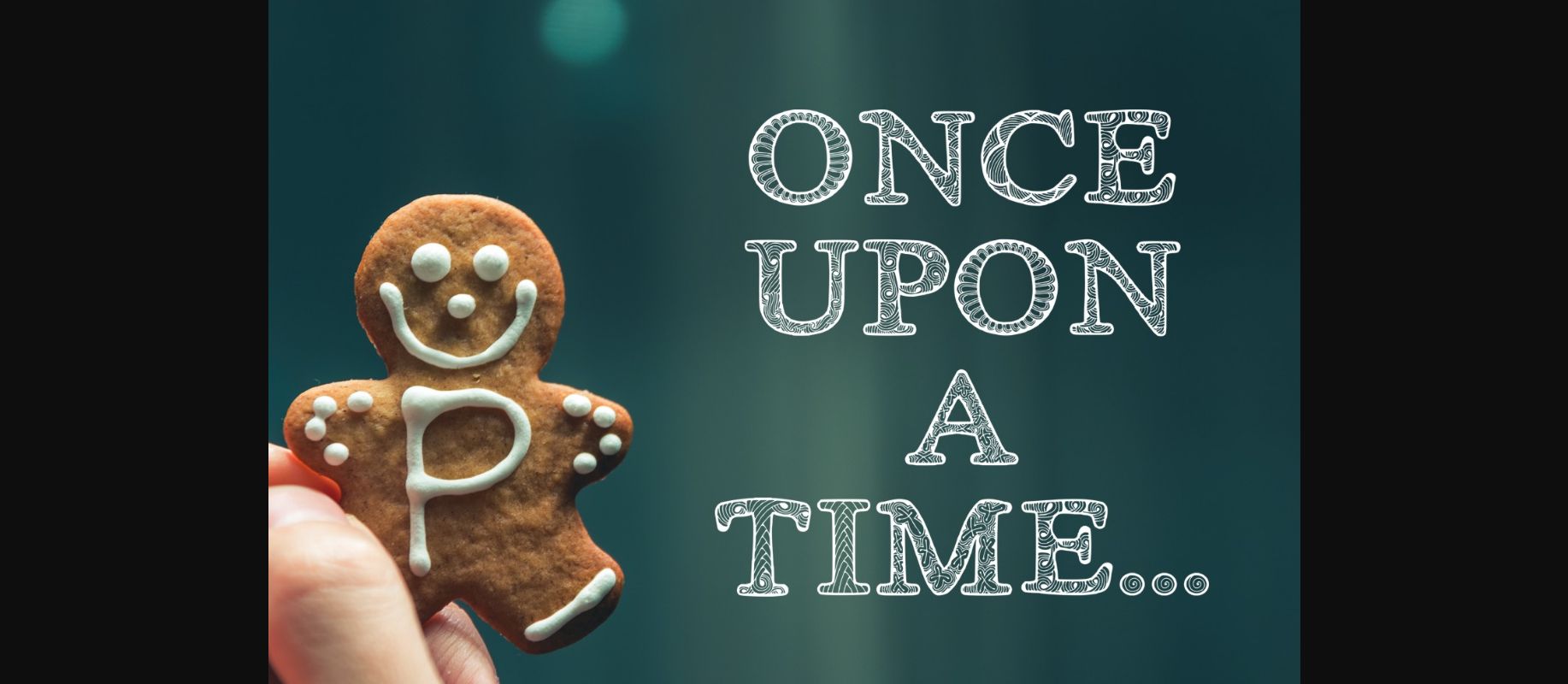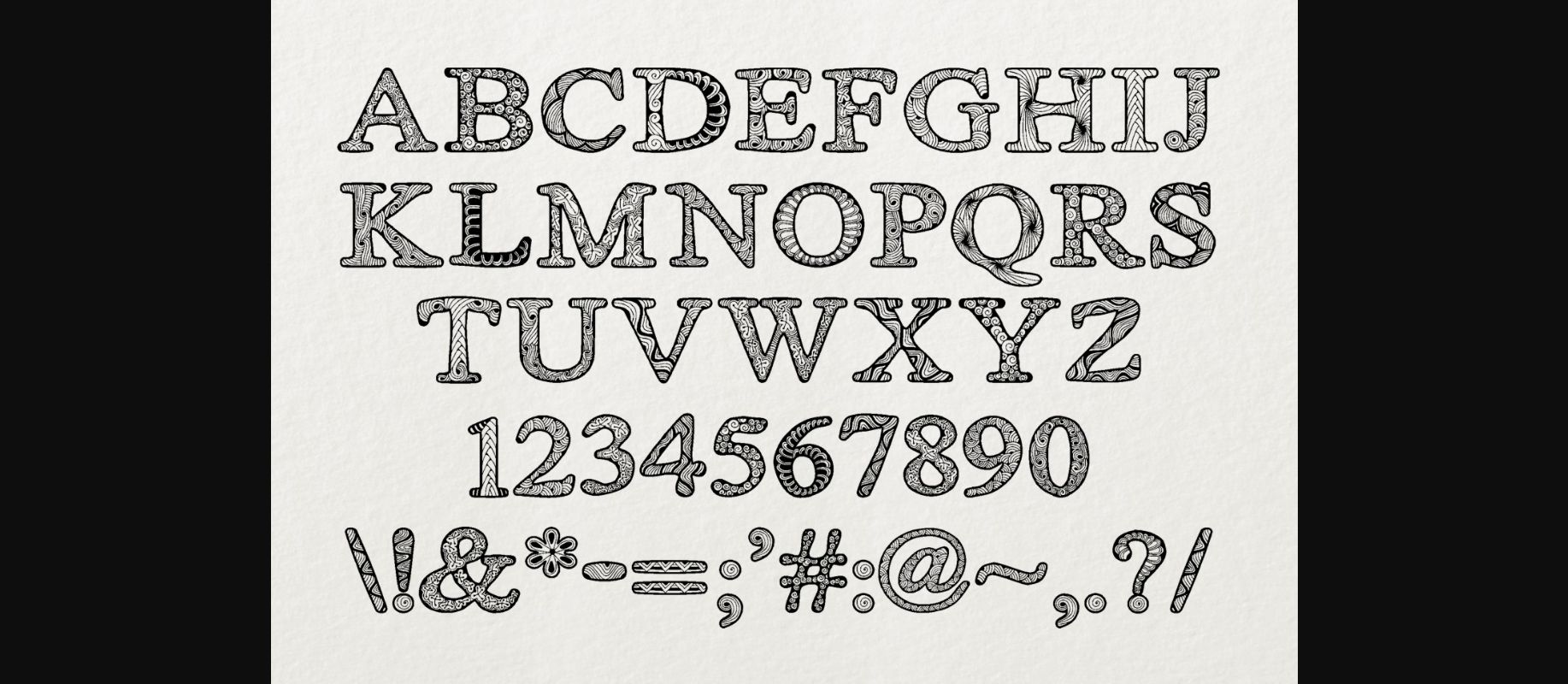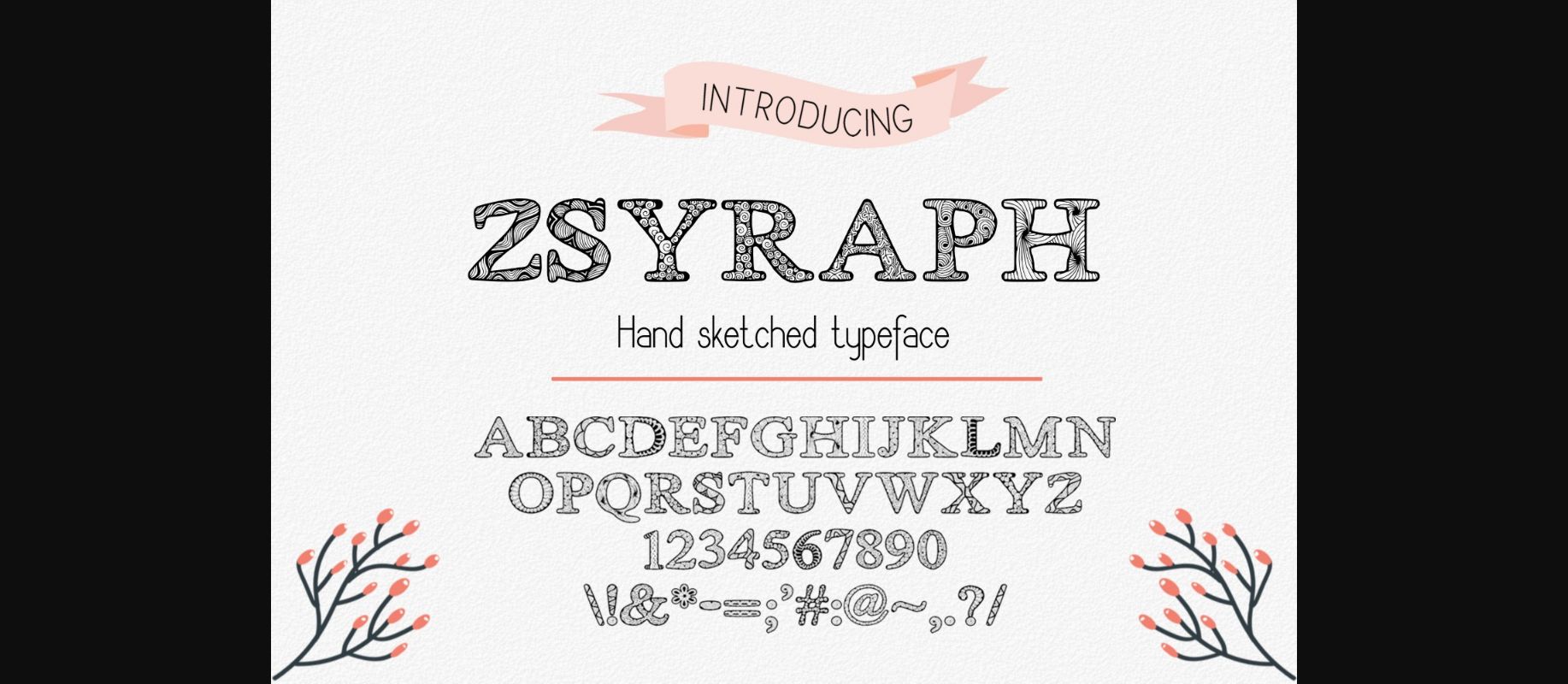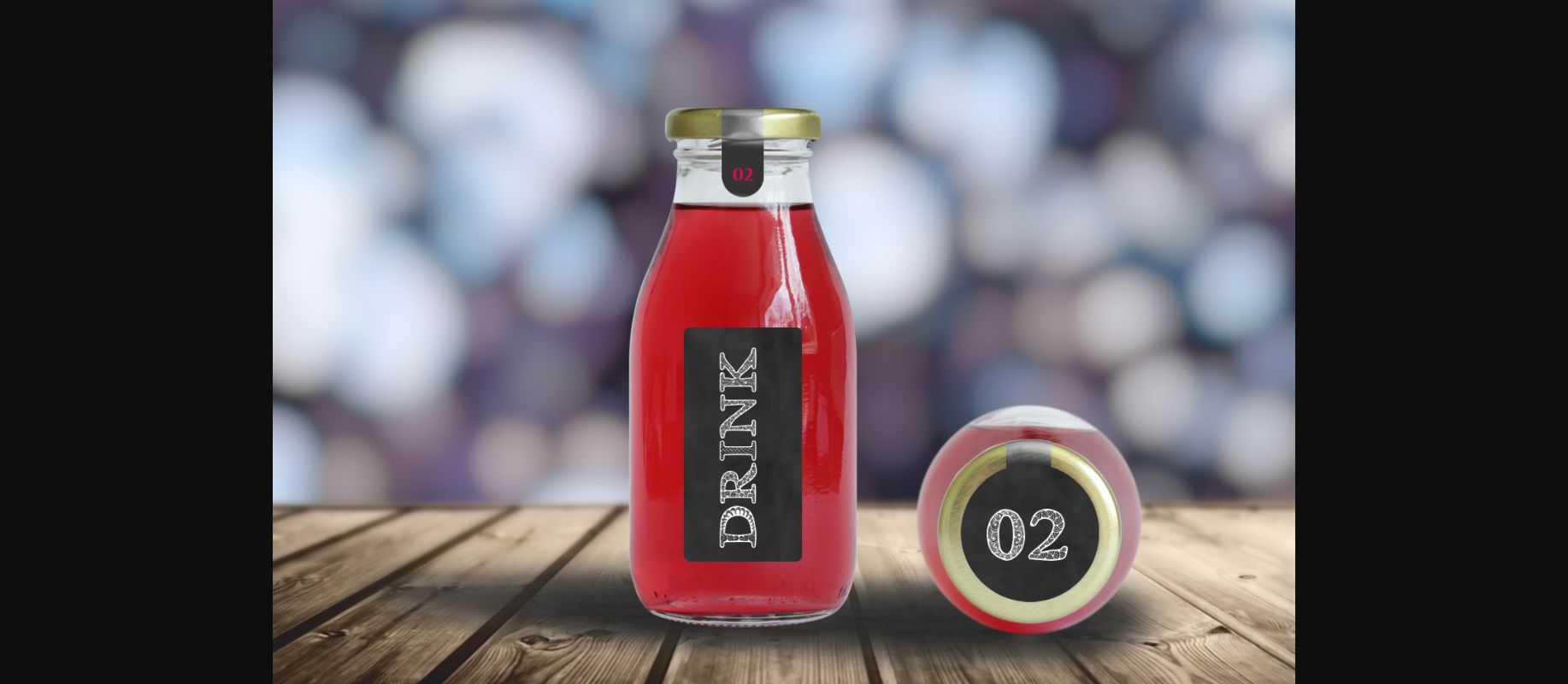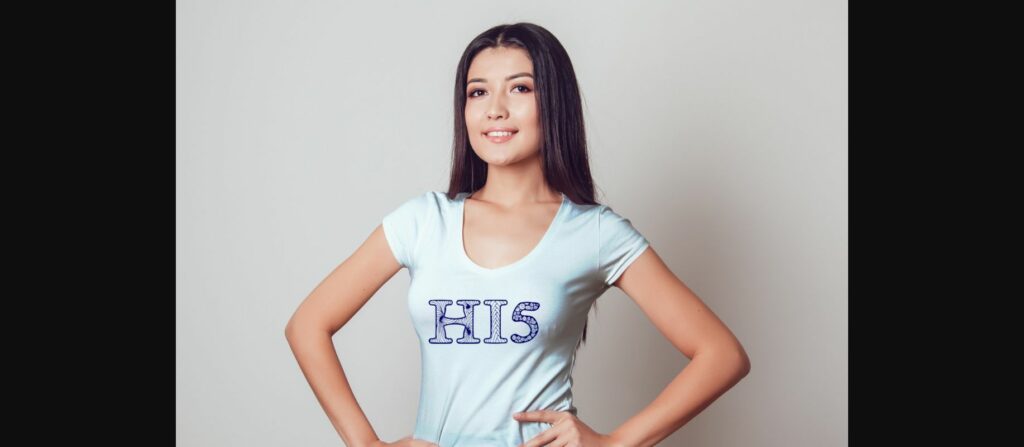
About Zsyraph Font
Zsyraph is a hand drawn decorative font.
Zsyraph is perfect for branding projects, homeware designs, product packaging, stationeries – or simply as a text overlay to any background image.
Zsyraph is a hand drawn decorative font.
Zsyraph is perfect for branding projects, homeware designs, product packaging, stationeries – or simply as a text overlay to any background image.